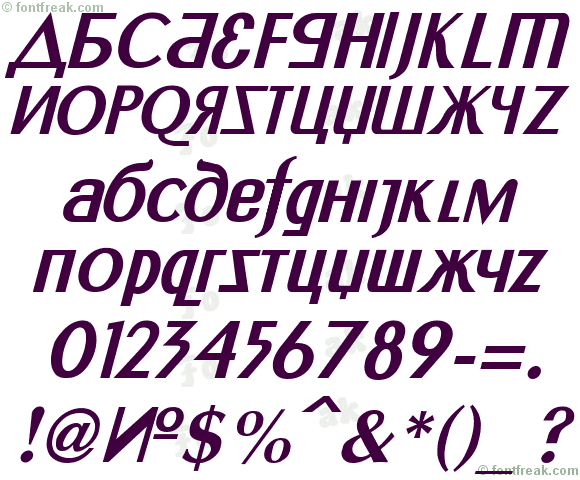
KREMLIN MINISTRY Demi Bold Italic
About Kremlin Ministry
The Kremlin Ministry font by Bolt Cutter Design is a striking display typeface that blends a sense of grandeur with modern design principles. This demi-bold serif font features a strong stroke weight, offering a commanding presence that captures attention. The high contrast between thick and thin strokes adds depth, while its well-balanced spacing enhances readability, making it suitable for various design applications. The font's unique letterforms incorporate subtle decorative elements, reminiscent of historical typographic styles, which evoke a sense of authority and sophistication.
Ideal for a range of creative projects, the Kremlin Ministry font excels in applications where a bold statement is required. It is perfect for movie posters, where its dramatic flair can enhance visual storytelling. Additionally, the font works wonderfully for restaurant menus, lending an air of elegance to culinary offerings. Wedding invitations can also benefit from its stylish appearance, providing a touch of formality that resonates with celebratory occasions. Graphic designers and content creators will find it an invaluable tool for branding or promotional materials, ensuring that their work stands out in a crowded marketplace.
Targeting graphic designers, small business owners, and content creators, the Kremlin Ministry font is a versatile choice for anyone looking to elevate their projects with a distinctive typeface. Its unique aesthetic and solid construction make it an excellent addition to any designer's toolkit.
What sets the Kremlin Ministry font apart is its ability to merge traditional typographic elegance with contemporary design sensibilities. This font is not just a typeface; it is a statement piece that embodies authority and grace. With the Kremlin Ministry font free download, you can incorporate this standout design into your projects and make a lasting impression.